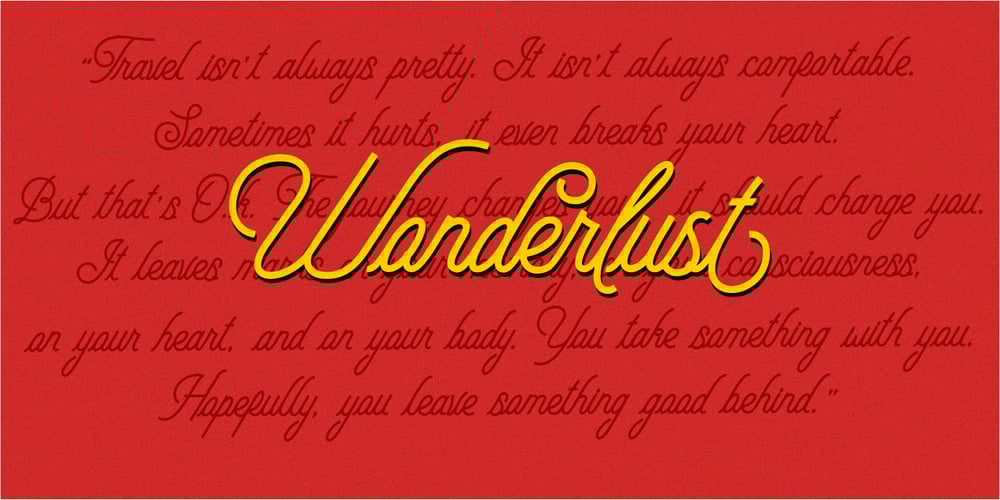
Forthland Font Family was designed by Ferry Septian and published by Uncurve. Forthland contains 22 styles and family package options. Forthland Type is composed of perfectly display blended fonts with 3 style (Regular, Texture and Stencil ). Including 20 font and 2 font extras. Forthland is Inspired from different label and logo brands. Perfect to use for advertising, poster, branding, logo type, header, titles, packaging, display etc. Forthland comes with serif, sans and script: that’s a good combination to help you with your design. Just mix and max and you got a authentic design.